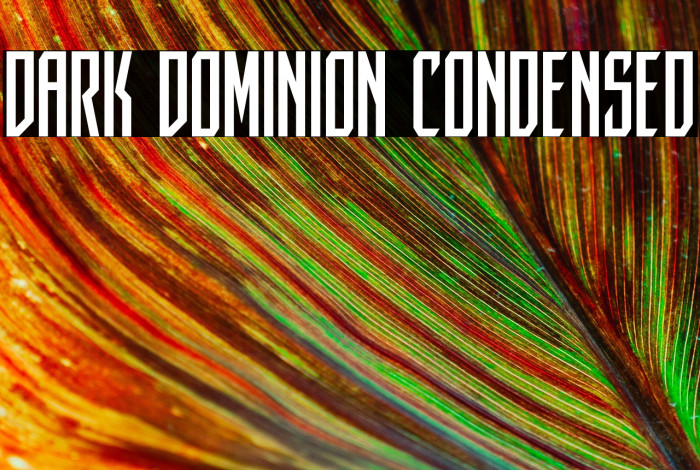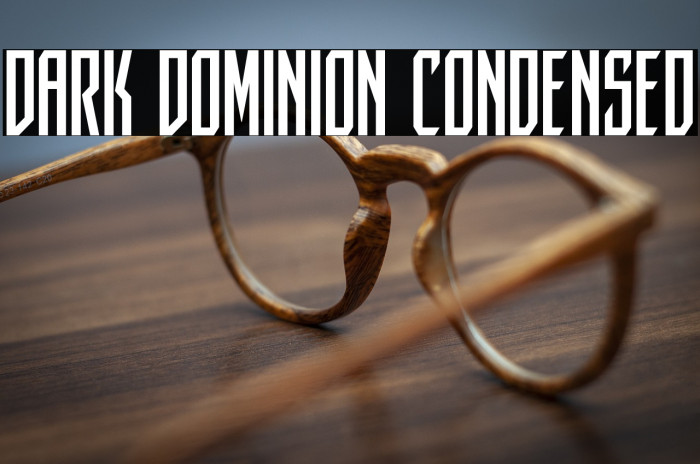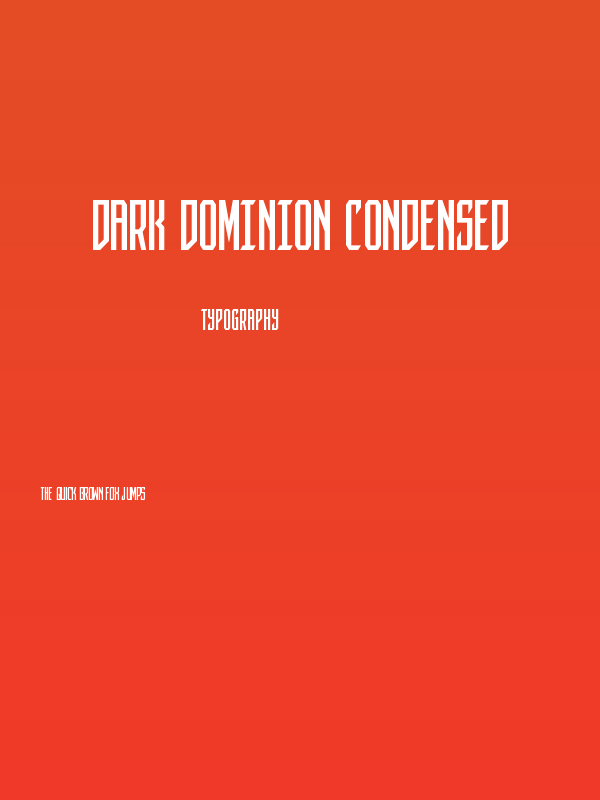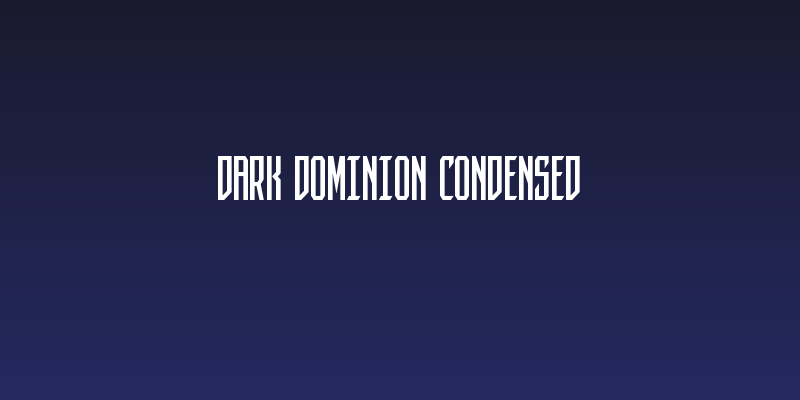
Dark Dominion Condensed Font
Dark Dominion Condensed Description
This font features a bold and condensed style with sharp, angular edges that give it a modern and aggressive appearance. The uppercase letters are tall and narrow, emphasizing verticality and strength. The numerals and special characters maintain this condensed form, ensuring consistency throughout the typeface. The overall design is striking and impactful, making it suitable for attention-grabbing headlines or branding that requires a strong visual presence.
| Proposed Projects | Ideal for use in posters, logos, branding, and headlines where a strong, modern aesthetic is desired. |